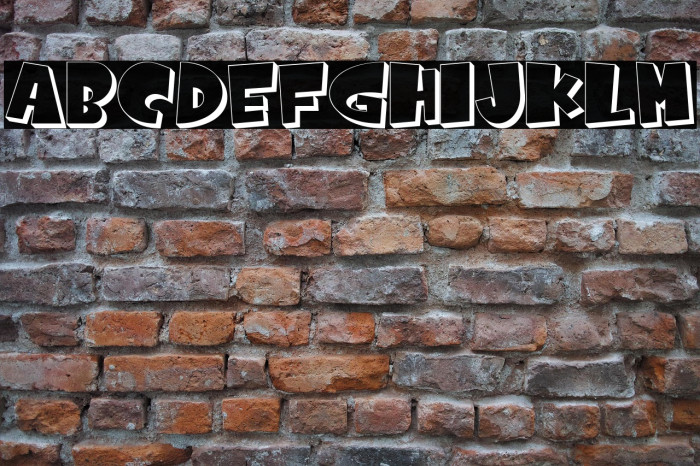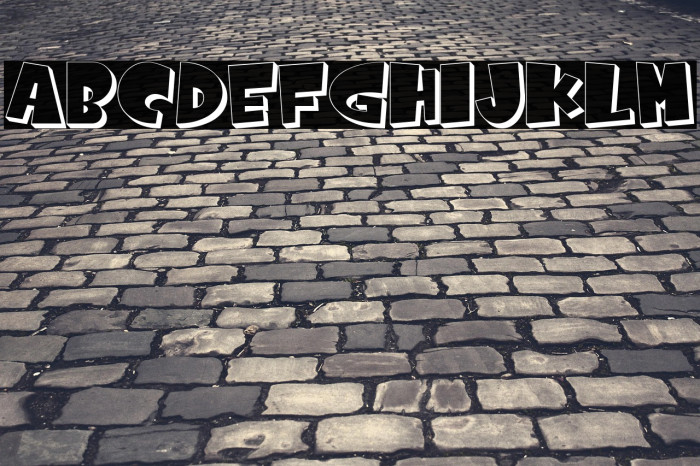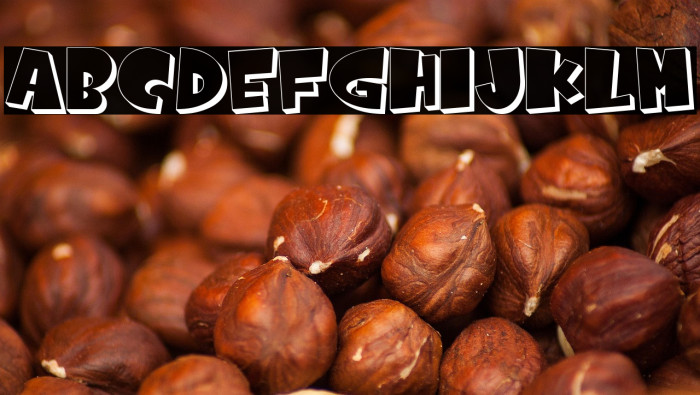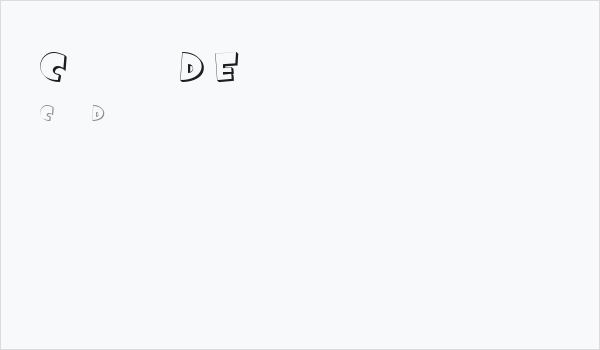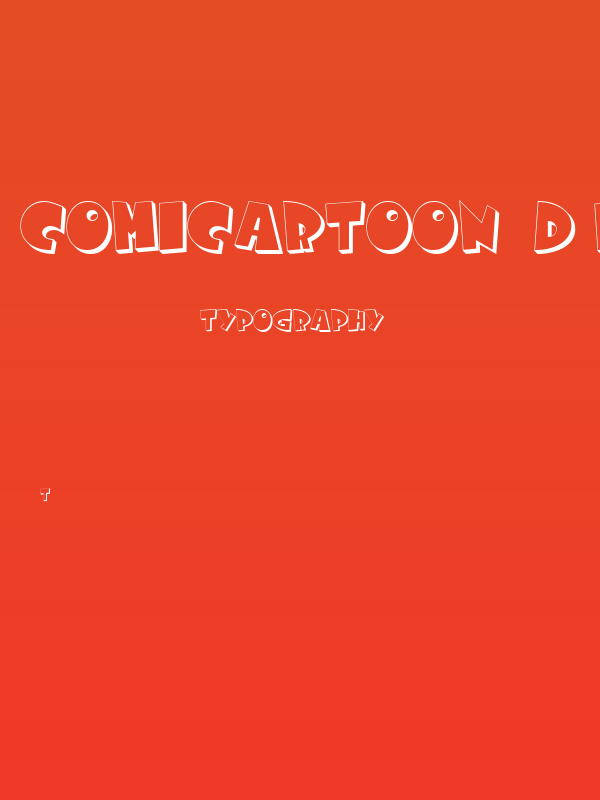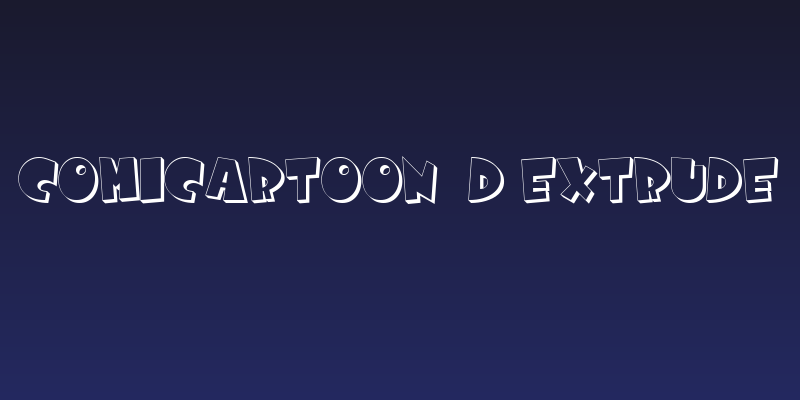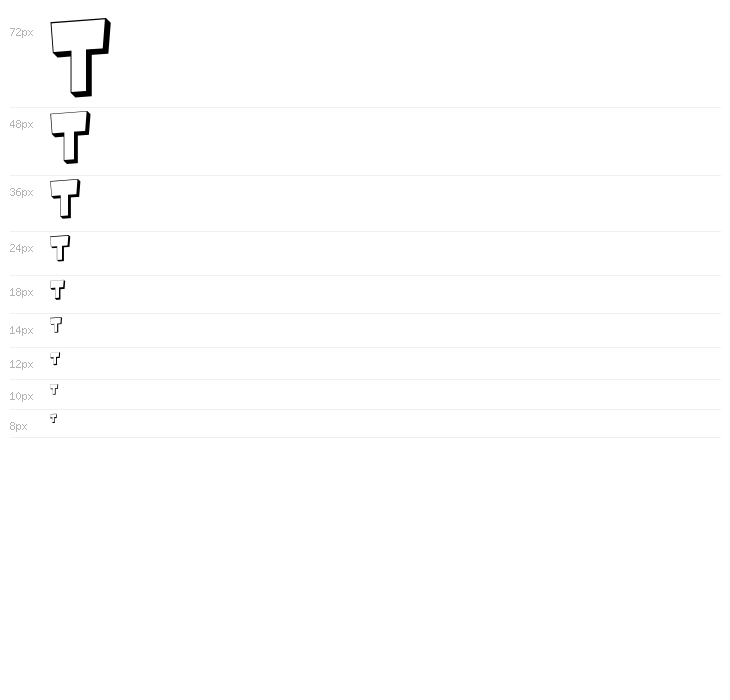
Comicartoon 3D Extrude Font
Comicartoon 3D Extrude Description
This playful and bold font features a 3D extruded effect, giving it a cartoonish and dynamic appearance. The letters are uppercase, with a thick, rounded style that adds a sense of fun and energy. The shadowing effect enhances the three-dimensional look, making it stand out for eye-catching designs. The font is well-suited for creative projects that require a lively and engaging typeface. Its boldness and unique style make it ideal for headlines, posters, and any design that aims to capture attention with a whimsical touch.
| Overall Style | Playful, Cartoonish, Dynamic |
| Use Case | Headlines, Posters, Branding |
| Proposed Projects | Ideal for comic books, children's posters, playful branding, and eye-catching headlines. |